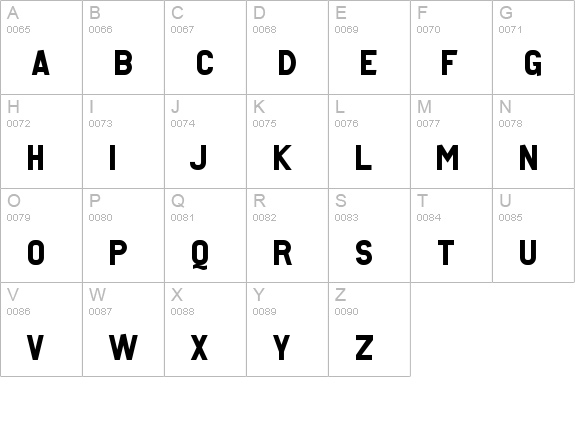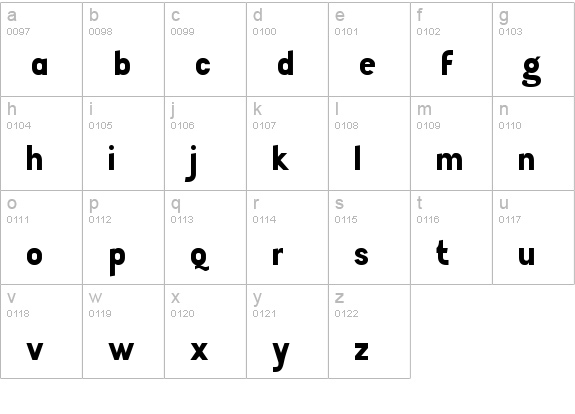
TenkoEhrgeizig Font Details
TenkoEhrgeizig font is a stunning display font that exudes confidence and ambition. Inspired by the tenacity and drive of individuals who are determined to achieve their goals, this font is perfect for making a bold statement in your designs. With its sharp and angular letterforms, TenkoEhrgeizig font commands attention and demands to be noticed. Its unique and unconventional style sets it apart from other fonts, making it a versatile choice for a wide range of creative projects. Whether you're designing a poster, logo, or website, TenkoEhrgeizig font will add a touch of sophistication and originality to your work. Its clean lines and precise spacing ensure legibility, while its bold presence adds a touch of drama and excitement. What makes TenkoEhrgeizig font even more appealing is that it is freely available to download at FontsMarket.com. This means that you can use this font in your personal and commercial projects without any restrictions. It's a fantastic opportunity to elevate your designs without breaking the bank. So, if you're looking for a font that embodies ambition and determination, look no further than TenkoEhrgeizig font. Download it today from FontsMarket.com and unleash your creativity with this stunning display font.